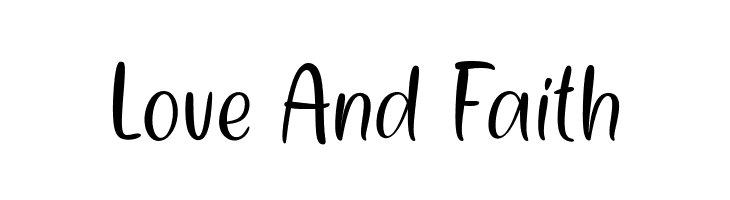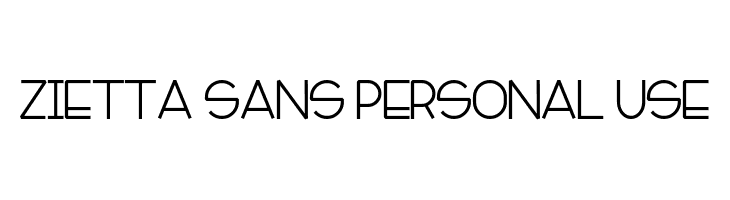
A modern, geometric sans-serif font with clean lines and uniform thickness.
A whimsical, thin-stroked font with a playful and modern design.
A playful handwritten font with smooth curves and a casual style.
A playful, dynamic script font with a handwritten feel and smooth curves.
A bold, dynamic script font with elegant, flowing letterforms.
A playful, casual handwritten font with smooth curves and a slightly slanted style.
A playful, casual handwritten font with rounded, consistent strokes.
A playful, bold script font with smooth curves and rounded edges.
A playful, hand-drawn font with rounded edges and a whimsical style.
A playful, bold, and hand-drawn font with a casual and friendly vibe.